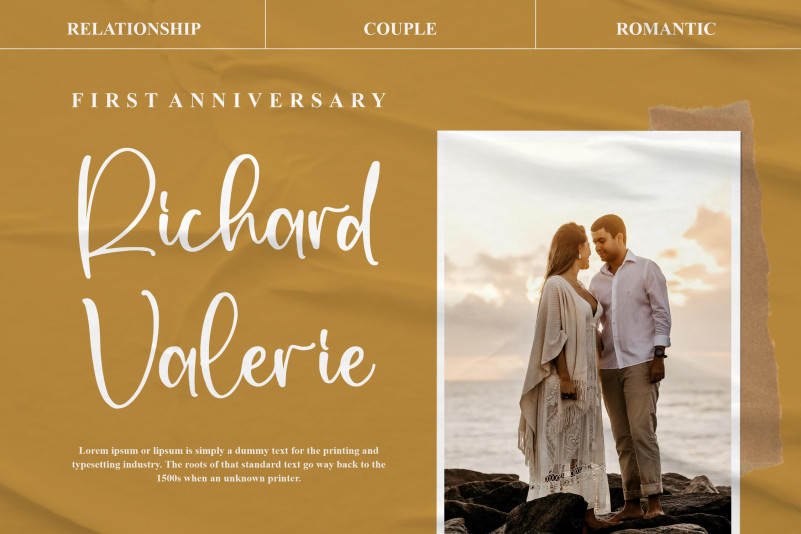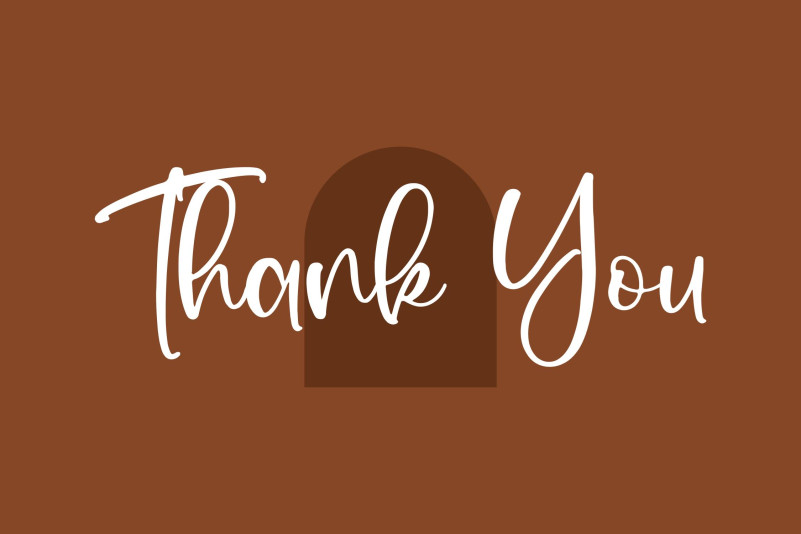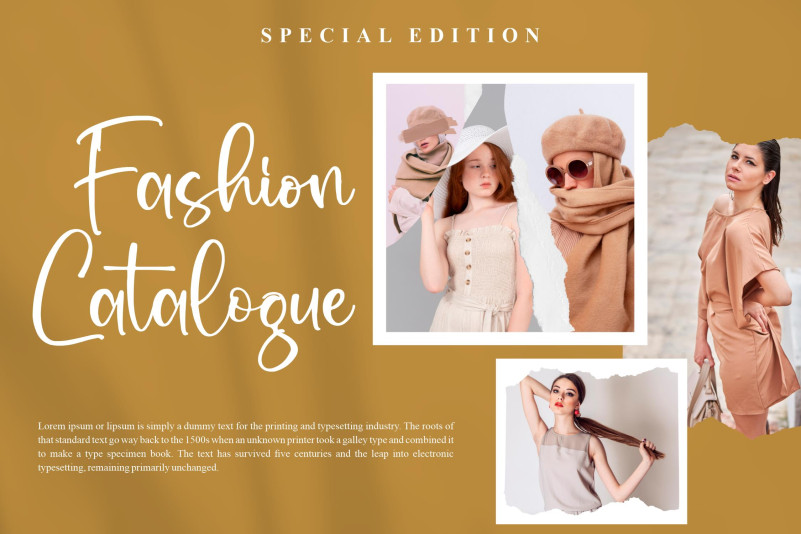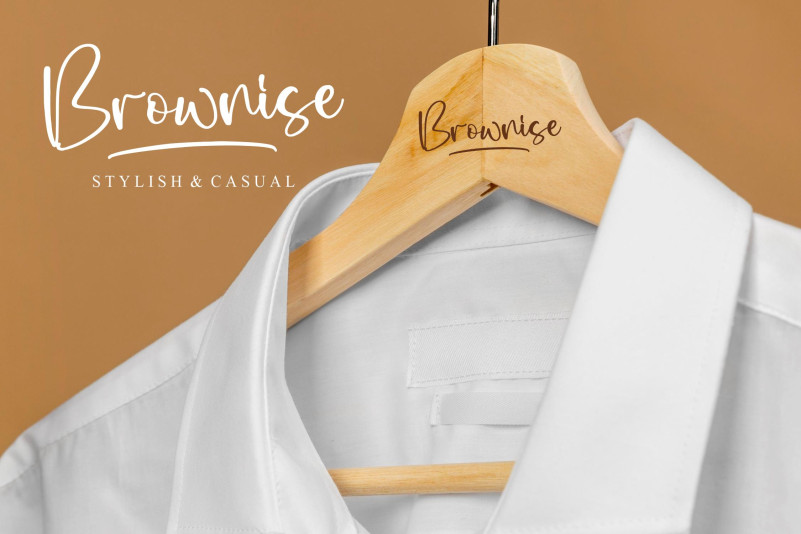
Margonda Font
Margonda Script Font is a Handwritten Script Font, suitable for any projects such as: logos, branding projects, homeware designs, product packaging, mugs, quotes, posters, shopping bags, t-shirts, book covers, name card, invitation cards, greeting cards, label, photography, watermark, special events, and all your other lovely projects that need a beautiful script taste.